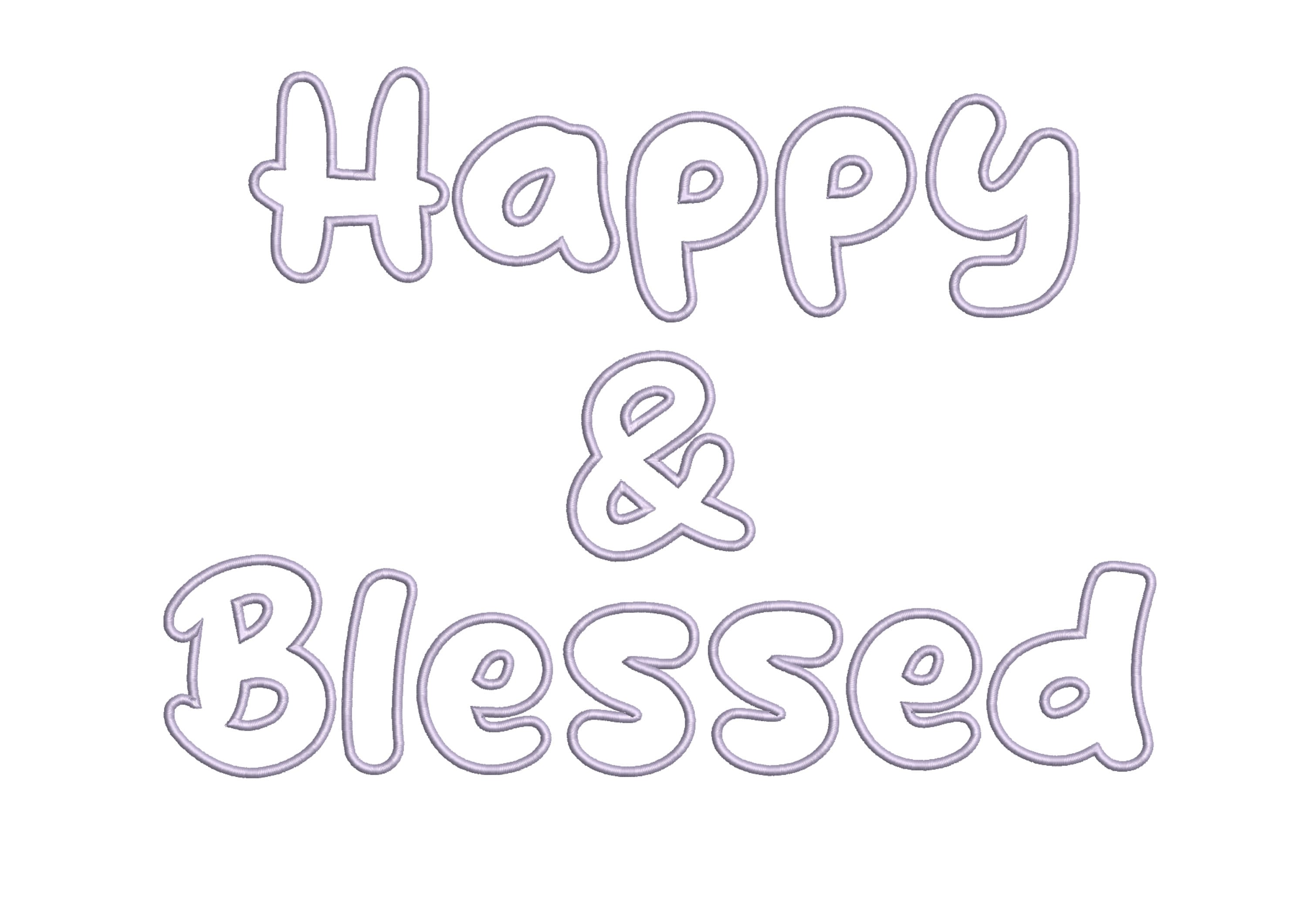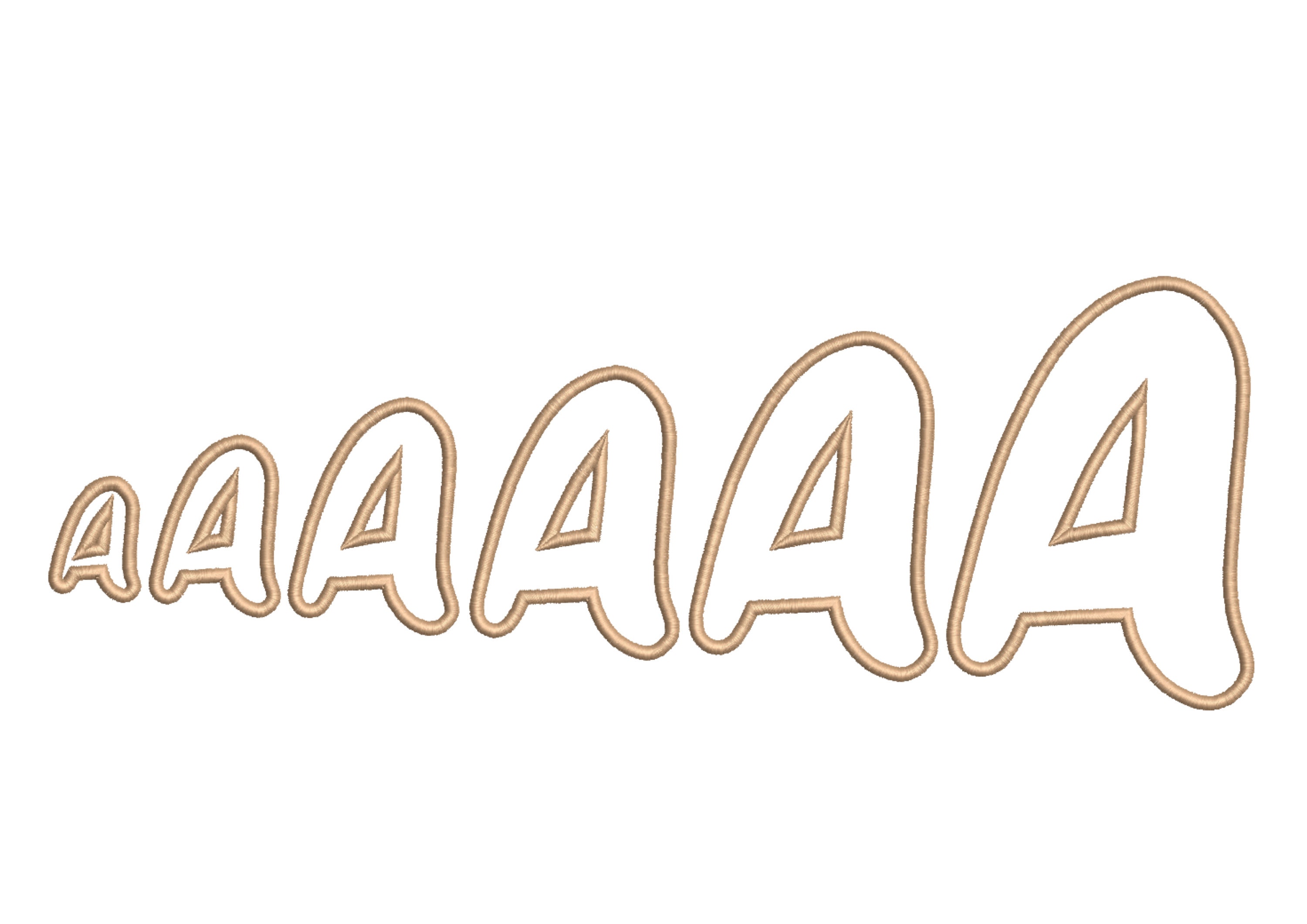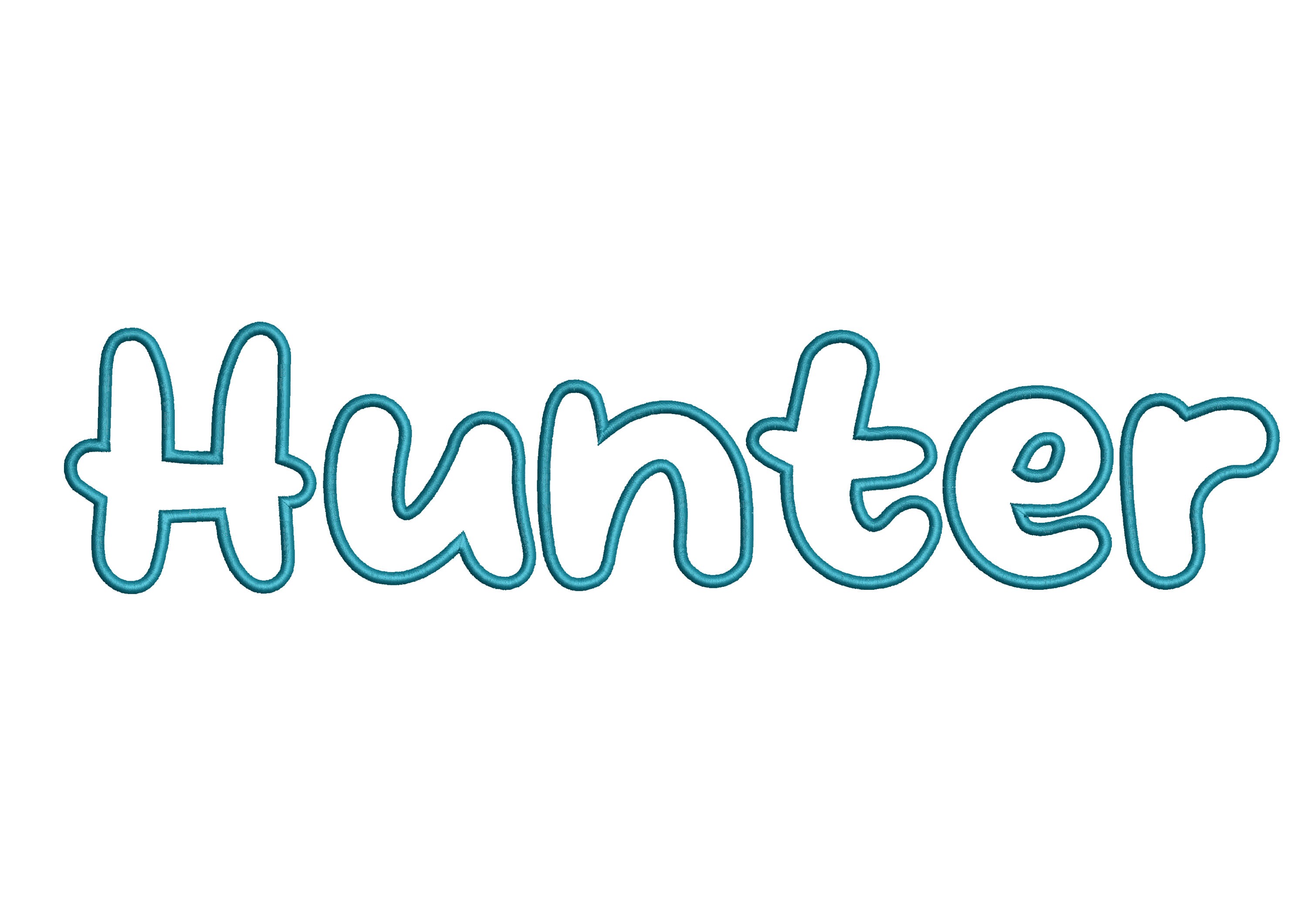
Modern applique letters hand written cursive bubble Font alphabet machine embroidery designs from 1.5 thru 5 inches, monogram BX
Uppercase and lowercase letters, numbers, punctuation